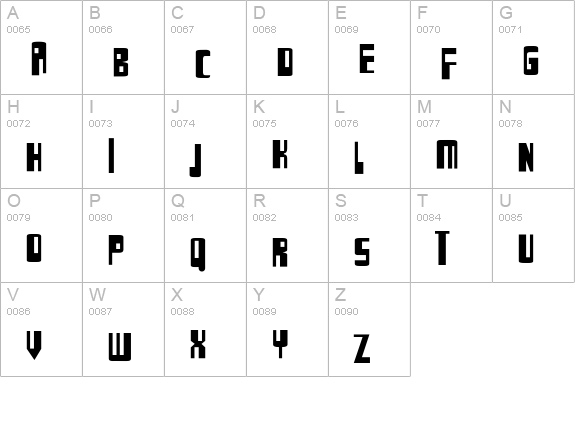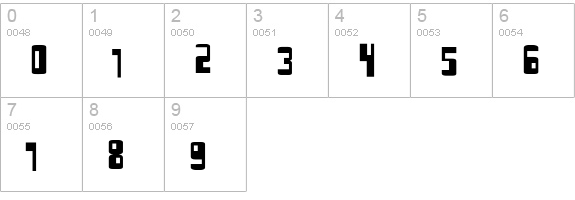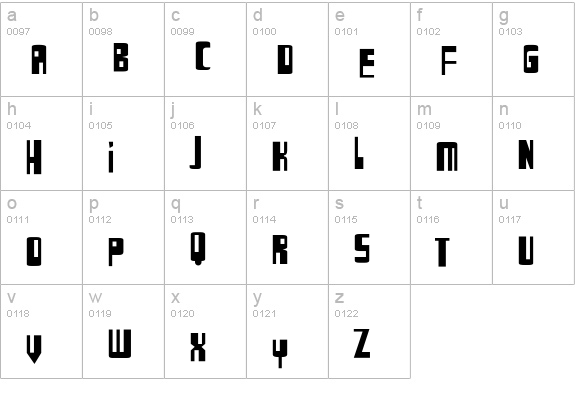
BigBeatBold Font Details
BigBeatBold is a bold and powerful display font that commands attention with its strong and striking presence. With its clean lines and bold letterforms, this font exudes confidence and modernity, making it perfect for headlines, posters, and other design projects that require a strong visual impact. The best part? BigBeatBold is available for free download at FontsMarket.com. This means that you can easily add this stunning font to your collection without any cost, making it a valuable resource for designers and creatives looking to make a statement with their typography. Don't miss out on the opportunity to elevate your designs with BigBeatBold's bold and dynamic style - download it for free today!